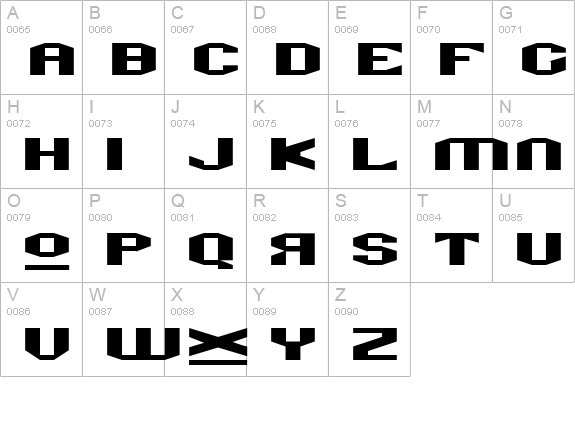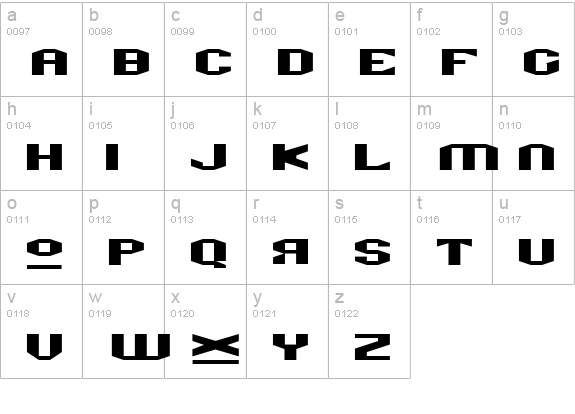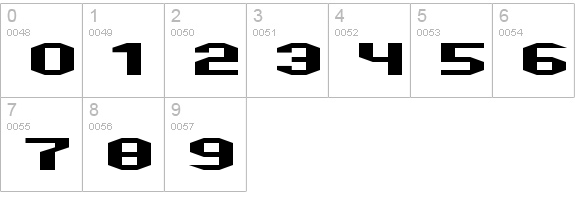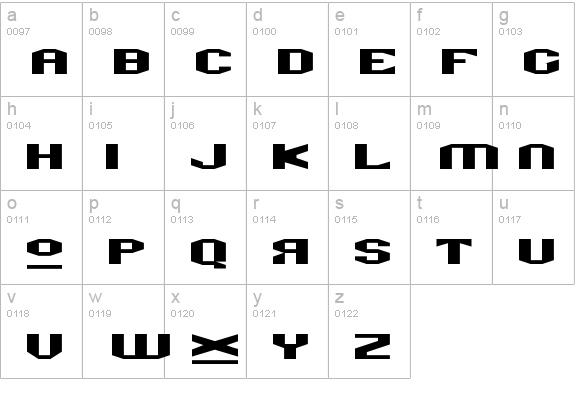
Valkyro Font Details
Introducing Valkyro Font, a stunning typeface that effortlessly combines elegance and modernity. With its sleek and contemporary design, Valkyro is the perfect choice for a wide range of projects, from branding and logos to invitations and editorial designs. This versatile font features clean lines and a unique visual appeal that instantly captures attention. Its carefully crafted letterforms are both legible and distinctive, making Valkyro a standout choice for any design project. But what sets Valkyro Font apart is that it is not only visually stunning, but also freely available to download at FontsMarket.com. This means that you can bring a touch of sophistication to your designs without having to worry about breaking the bank. Whether you're a professional designer or a casual enthusiast, Valkyro Font allows you to unleash your creativity and bring your ideas to life. Its extensive character set ensures that you have all the tools you need to create stunning and impactful designs. So why wait? Download Valkyro Font today and discover the endless possibilities it offers. Whether you're designing a logo for a new business or crafting the perfect wedding invitation, Valkyro Font will elevate your designs and leave a lasting impression. Experience the beauty of this free font and let your creativity soar.